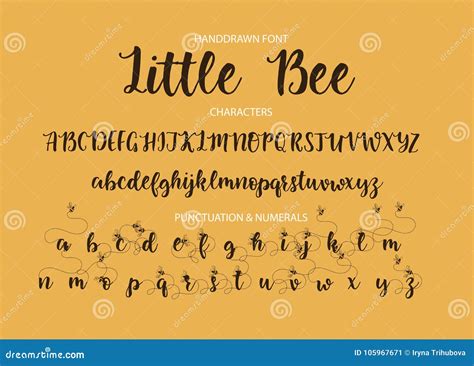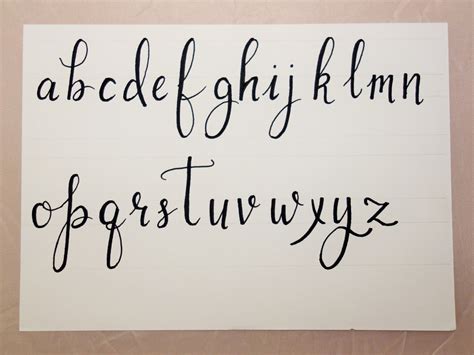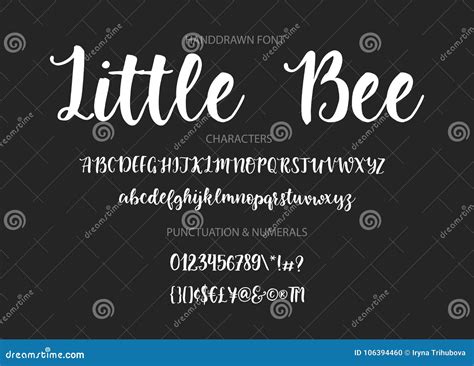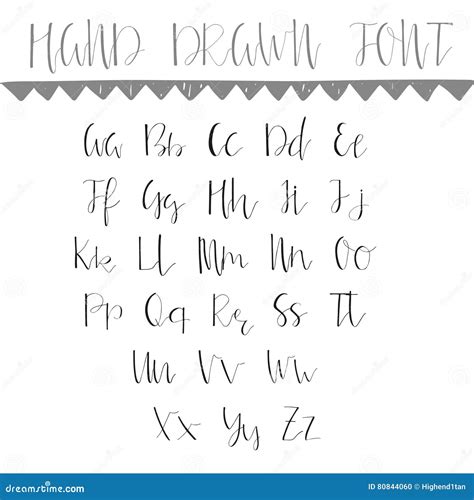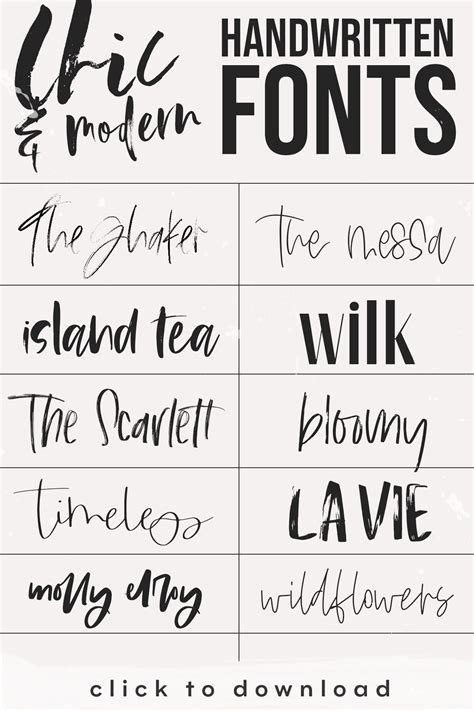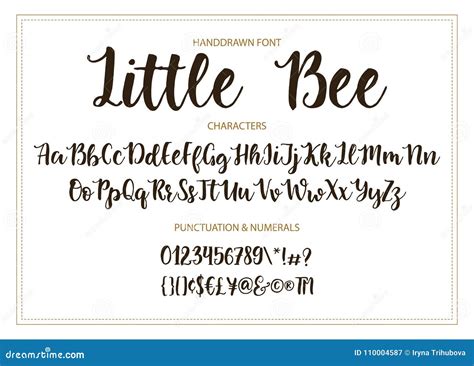
In the world of design and typography, the art of calligraphy has seen a resurgence, particularly with the rise of digital tools and software. One of the most captivating trends in this realm is the use of Modern Calligraphy Fonts. These fonts blend the elegance of traditional calligraphy with the versatility of digital design, making them a favorite among designers, artists, and enthusiasts alike. Whether you're creating invitations, logos, or social media graphics, a well-chosen modern calligraphy font can add a touch of sophistication and personalization to your work.
Understanding Modern Calligraphy Fonts
Modern calligraphy fonts are characterized by their fluid, hand-drawn appearance, which mimics the natural flow of a pen or brush. Unlike traditional calligraphy, which often relies on strict rules and techniques, modern calligraphy fonts offer more flexibility and creativity. They can range from highly stylized and decorative to more minimalist and clean, making them suitable for a variety of projects.
Characteristics of Modern Calligraphy Fonts
To better understand what sets modern calligraphy fonts apart, let's explore some of their key characteristics:
- Flow and Rhythm: Modern calligraphy fonts often have a natural, flowing rhythm that mimics handwriting. This makes them ideal for projects that require a personal touch.
- Versatility: These fonts can be used in a wide range of applications, from wedding invitations to branding materials. Their adaptability makes them a valuable addition to any designer's toolkit.
- Elegance: Despite their modern twist, these fonts retain the elegance and grace of traditional calligraphy. They can add a touch of sophistication to any design.
- Customization: Many modern calligraphy fonts come with various styles and weights, allowing for extensive customization. This makes it easy to create unique and personalized designs.
Popular Modern Calligraphy Fonts
There are numerous modern calligraphy fonts available, each with its unique style and characteristics. Here are some popular options that you might consider:
| Font Name | Description | Use Cases |
| Great Vibes | A highly popular modern calligraphy font known for its elegant and flowing script. It's perfect for invitations, logos, and branding materials. | Wedding invitations, branding, social media graphics |
| Allura | This font features a delicate and feminine style, making it ideal for projects that require a soft and romantic touch. | Wedding invitations, greeting cards, personal projects |
| Sacramento | A versatile modern calligraphy font with a playful and whimsical feel. It's great for adding a touch of fun to your designs. | Children's books, event invitations, social media graphics |
| Dancing Script | This font mimics the natural flow of handwriting, making it perfect for projects that require a personal and authentic touch. | Handwritten notes, personal projects, branding |
| Lobster | A bold and stylish modern calligraphy font with a vintage feel. It's ideal for projects that require a strong visual impact. | Posters, logos, branding materials |
📝 Note: When choosing a modern calligraphy font, consider the overall aesthetic of your project. Different fonts have different moods and styles, so select one that complements your design vision.
How to Use Modern Calligraphy Fonts
Using modern calligraphy fonts in your designs can be a straightforward process, especially with the right tools and techniques. Here are some steps to help you get started:
Choosing the Right Software
To work with modern calligraphy fonts, you'll need a design software that supports font installation and usage. Some popular options include:
- Adobe Illustrator: A powerful vector graphics editor that is widely used by professionals. It offers extensive font management and design tools.
- Adobe Photoshop: A raster graphics editor that is great for creating and editing images. It also supports font installation and usage.
Applying Modern Calligraphy Fonts to Your Designs
After installing the font, you can start applying it to your designs. Here are some tips to help you get the best results: